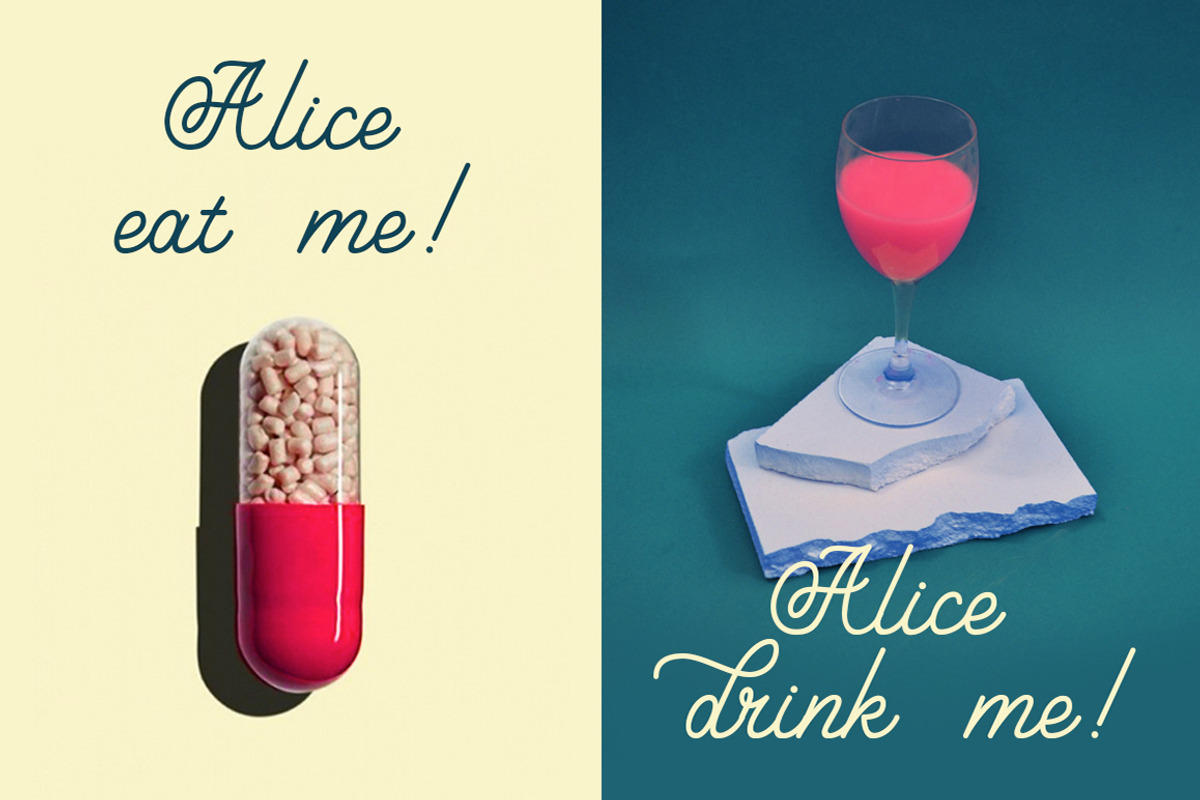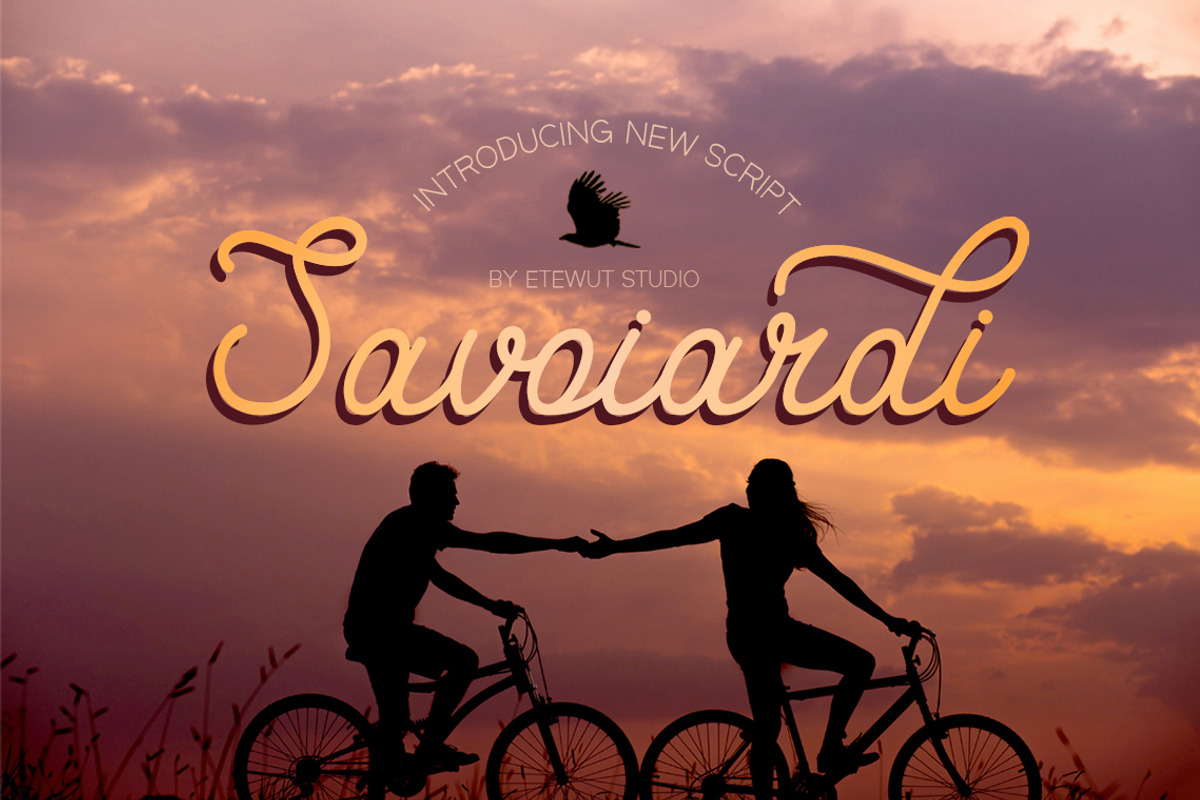
Savoiardi script+shadow
Here is my brand new mono line Savoiardi script
- Alternative symbols and swashes are included.
- Multi language support
- Shadow
- Perfectly fits to Savoiardi sans
- Perfectly fits to Savoiardi display